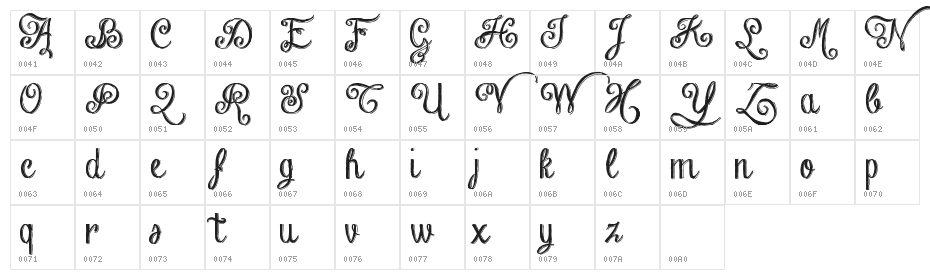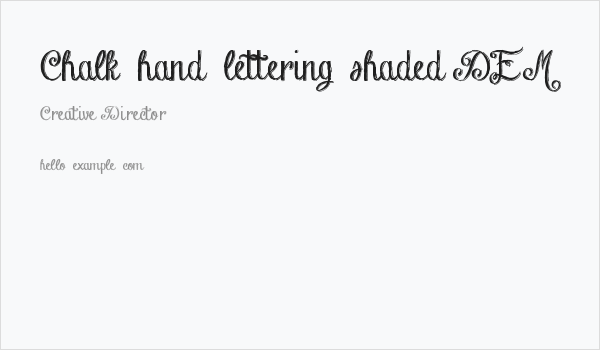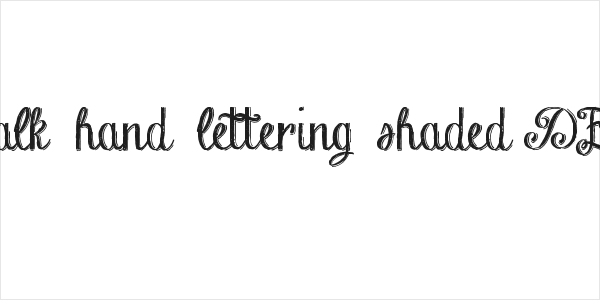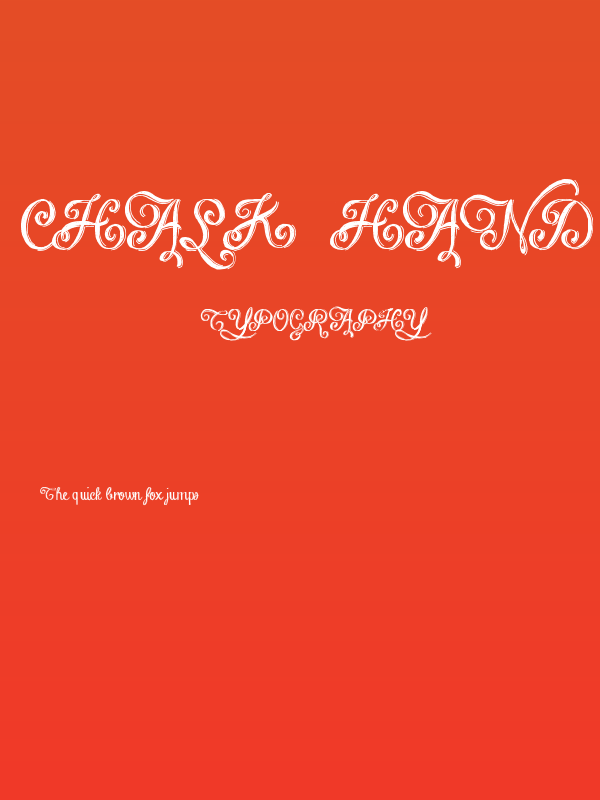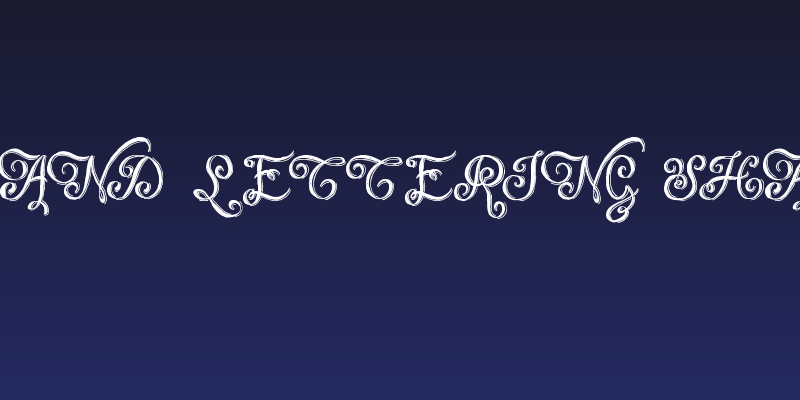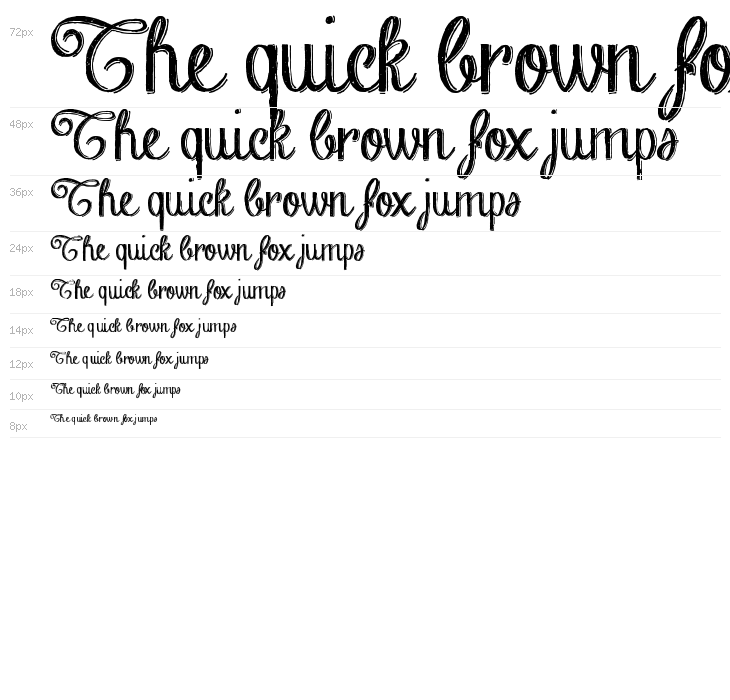
Chalk-hand-lettering-shaded DEM Font
Chalk-hand-lettering-shaded DEM Description
This font features a charming, hand-drawn style reminiscent of chalkboard lettering. The uppercase letters are adorned with elegant swirls and flourishes, giving them a decorative and whimsical appearance. The lowercase letters maintain a consistent style, with smooth curves and a playful touch. The shading effect adds depth and texture, enhancing the overall hand-crafted feel. This font is perfect for projects that require a personal, artistic touch, such as invitations, greeting cards, or creative branding. Its unique style captures the essence of traditional hand lettering, making it both nostalgic and visually appealing.
| Proposed Projects | Ideal for invitations, greeting cards, creative branding, and artistic projects. |